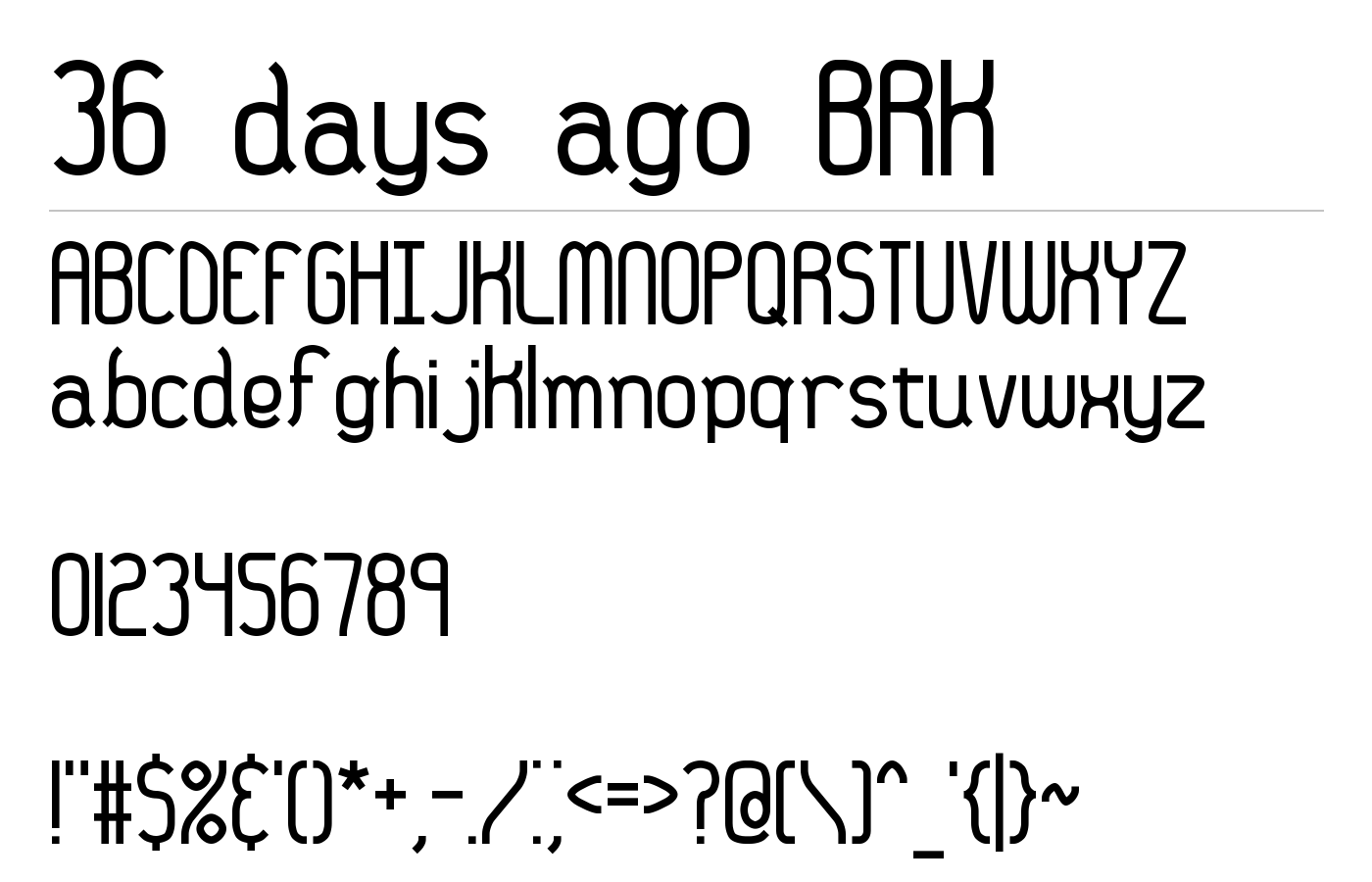
36 days ago BRK is a distinctive sans serif font with a tall, narrow structure and a light weight that gives it a modern, clean appearance. Its rounded edges and slightly quirky letterforms, like the single-story ‘a’ and ‘g’, impart a friendly and approachable feel, making it suitable for contemporary branding, editorial headlines, and digital interfaces where uniqueness and legibility are important. This font works well in projects aiming for a fresh, casual, yet professional vibe.
36 days ago BRK Font